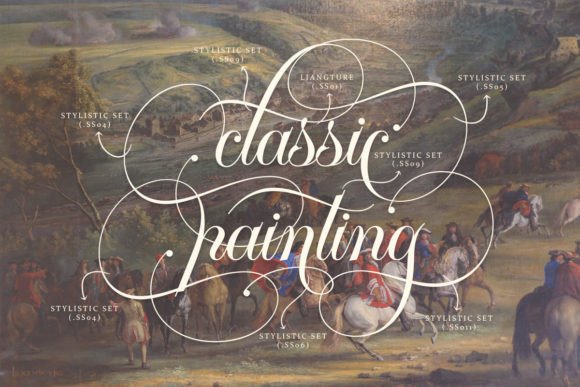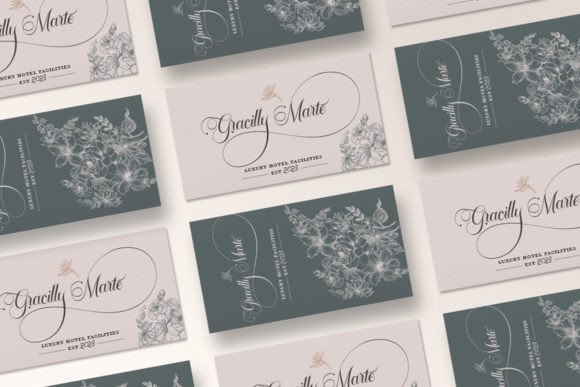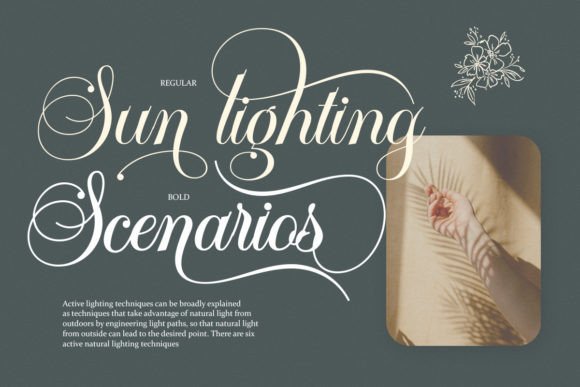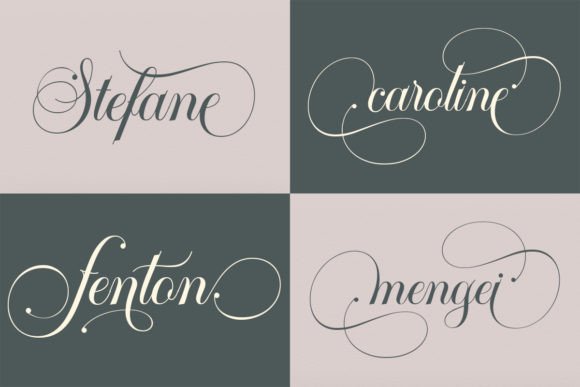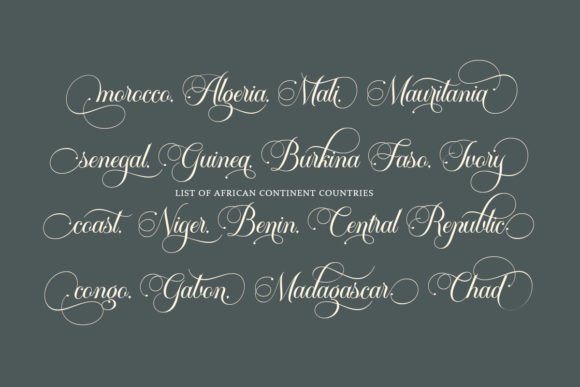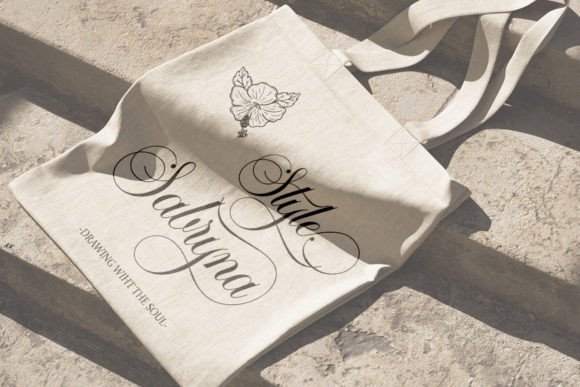
Introduction to Garinstae Script Font
As a designer, there’s nothing quite like the thrill of bringing a creative project to life. You’re brainstorming ideas, sketching out concepts, and searching for the perfect font to make your vision stand out. That’s where the Garinstae Script Font comes in – a modern and classic handwritten calligraphy font that’s as versatile as it is beautiful.
Whether you’re working on a logo, printed quote, invitation, card, or product packaging, Garinstae Script Font is the perfect design resource to elevate your work. Its high-quality, soft texture and wide range of glyphs, punctuation, and numbers make it an invaluable asset for designers of all levels. With the ability to customize dynamic text and access alternative styles, swashes, and binders in popular design software, the possibilities are endless.
Key Features of Garinstae Script Font
- Unique Handwritten Style: Garinstae Script Font features a beautiful, handwritten style that’s perfect for creative projects, making it an excellent design resource.
- High-Quality Typography: This font is designed with high-quality typography in mind, ensuring that your text stands out in any context.
- Transparent Background: Garinstae Script Font includes a transparent background option, allowing you to easily integrate it into your design without any distractions.
- Resolution: Garinstae Script Font is designed at a high resolution of 300 DPI, making it suitable for use in a variety of creative projects, from print to digital design.
- Perfect for Creative Projects: Garinstae Script Font is ideal for use in creative projects, such as wedding invitations, birthday cards, and other decorative designs.
Honest Review: Garinstae Script Font
As a designer, I’m always on the lookout for high-quality fonts to elevate my creative projects. Recently, I stumbled upon the Garinstae Script Font, and I’m excited to share my honest review.
- Beautiful, handwritten style that’s perfect for creative projects
- High-quality design that looks great on both light and dark backgrounds
- Transparent background, allowing for easy customization and composition
The Garinstae Script Font is a great addition to any designer’s toolkit. Its unique, handwritten style adds a touch of personality to any project, and the high-quality design ensures it looks great every time.
- May not be suitable for projects that require a more formal or traditional font style
- Limited language support, which may be a concern for designers working on international projects
Overall, I’m impressed with the Garinstae Script Font. Its high-quality design, beautiful style, and free download option make it an excellent resource for designers. With a little creativity, it’s easy to overcome its limitations and create stunning designs.
Garinstae Script Font is ideal for creative projects that require a touch of elegance, such as:
Wedding invitations, birthday cards, and other special occasion designs.
Branding and logo designs that need a unique and stylish touch.
Blog posts and articles that require a high-quality, readable font.